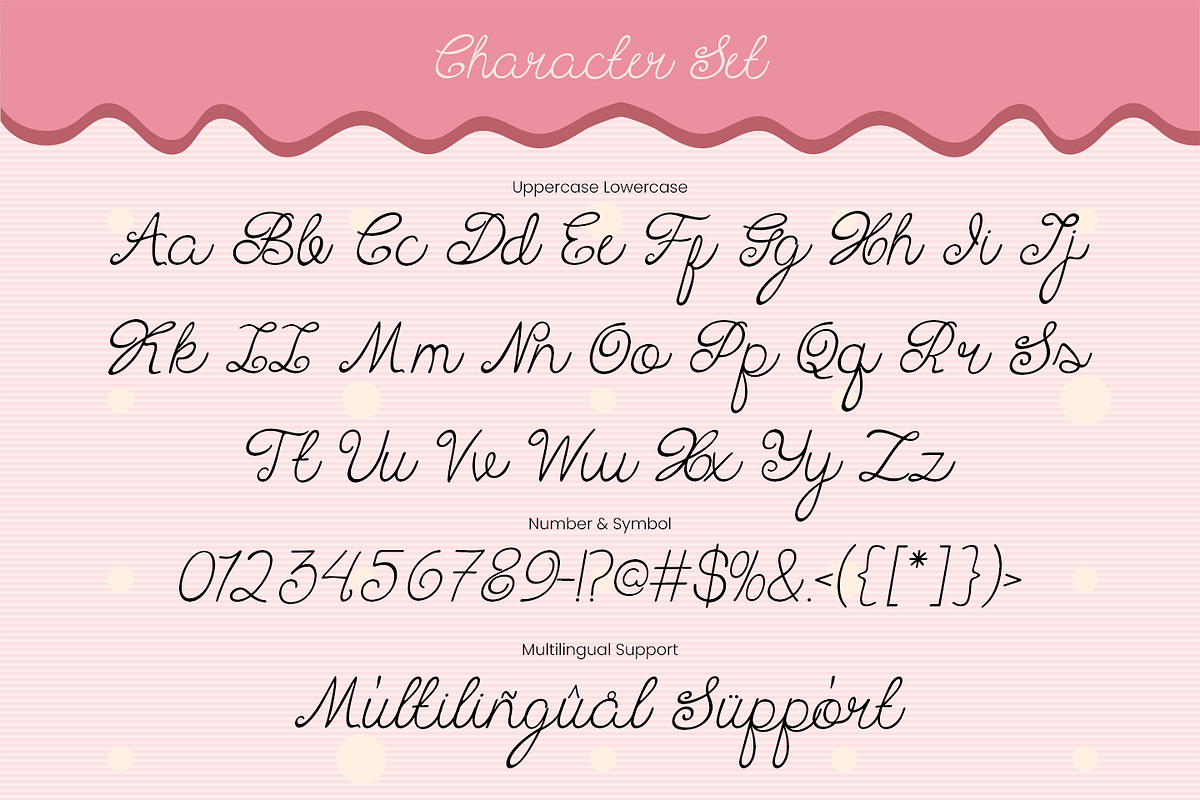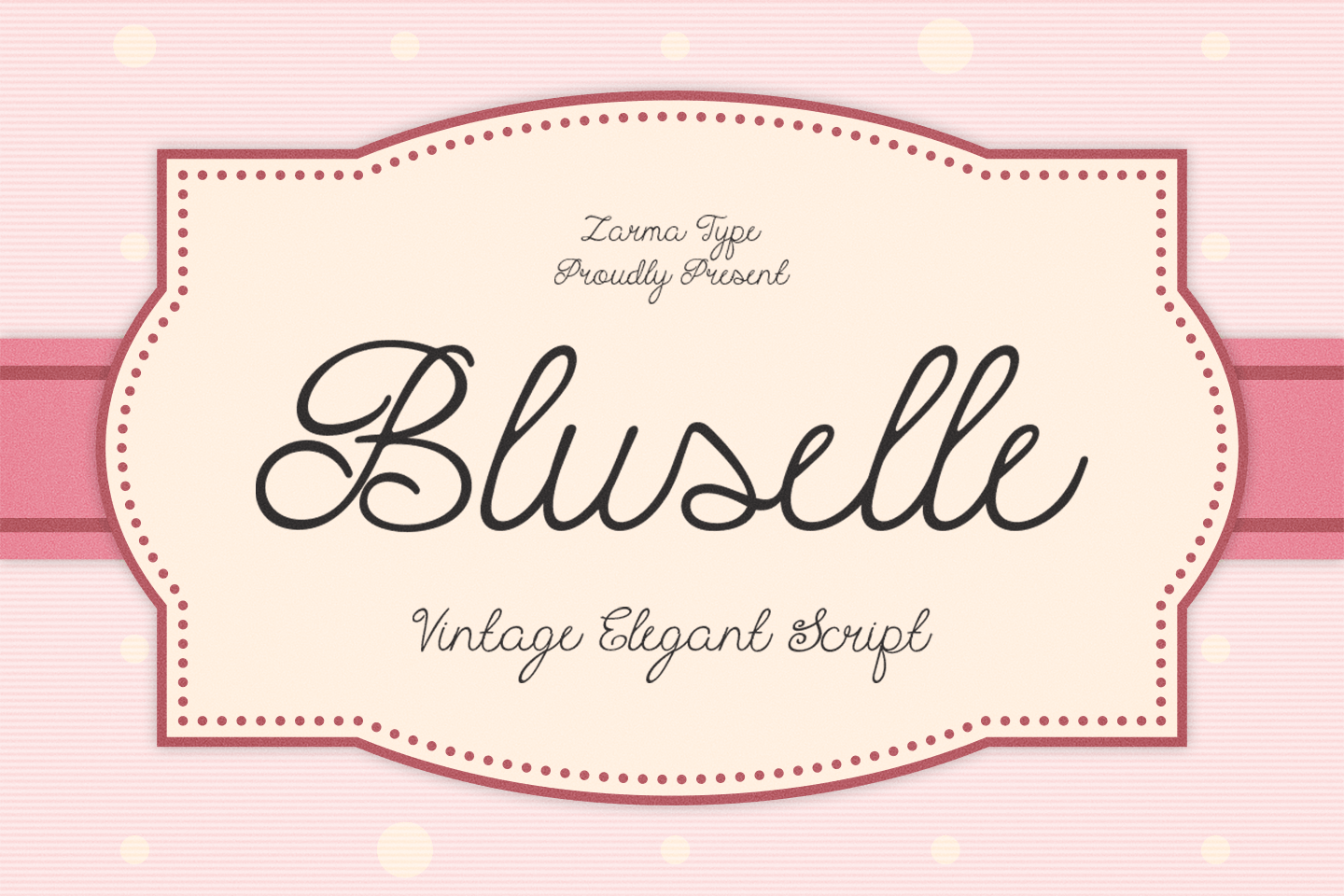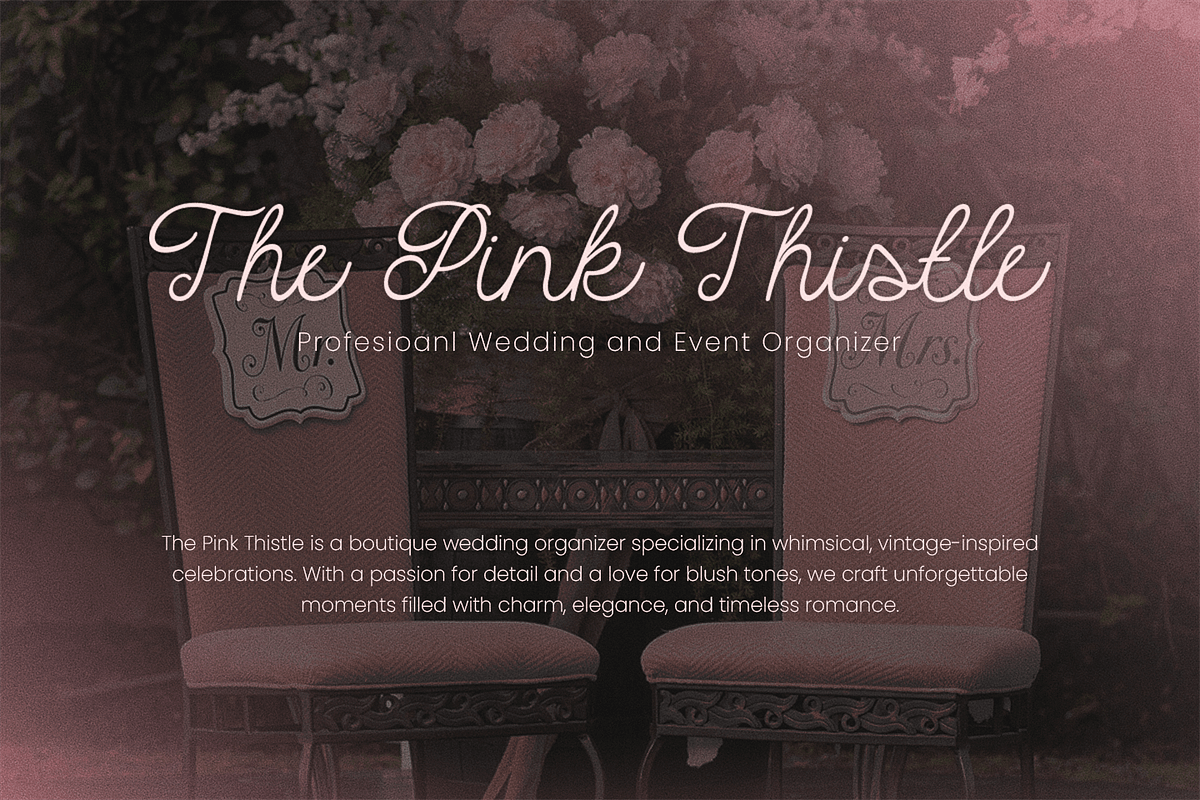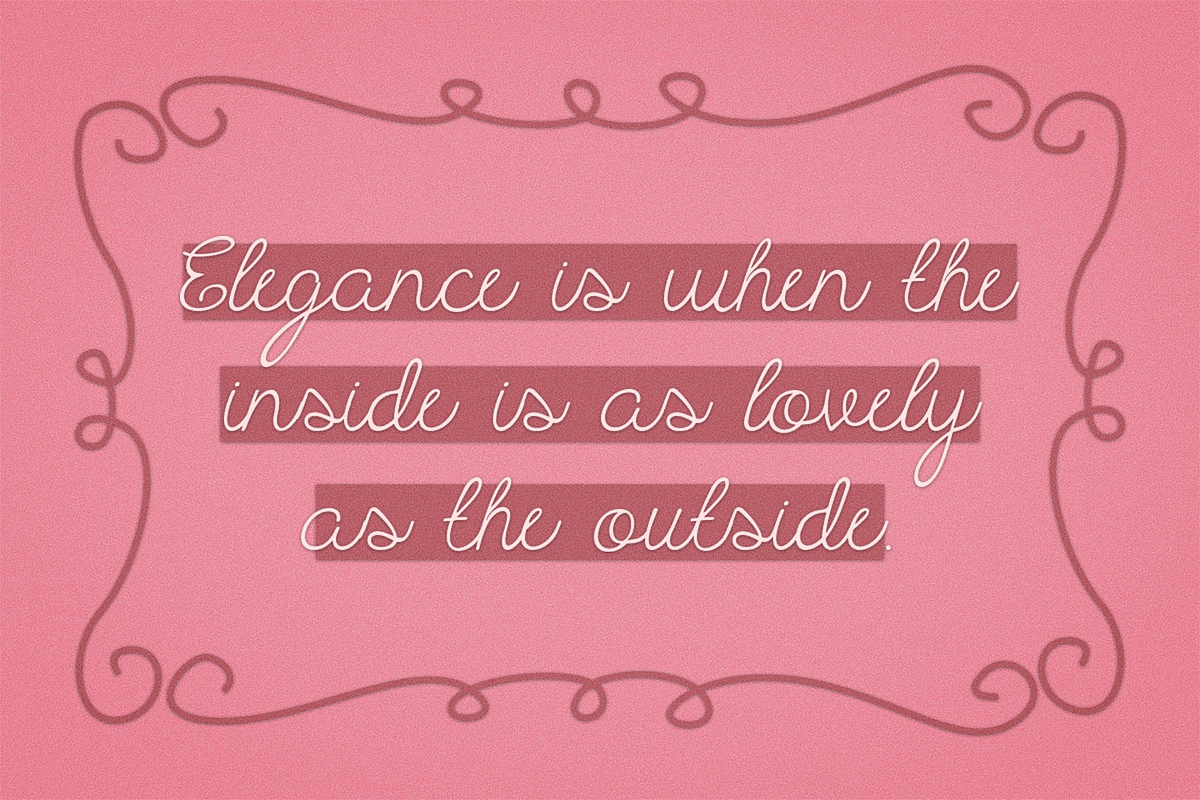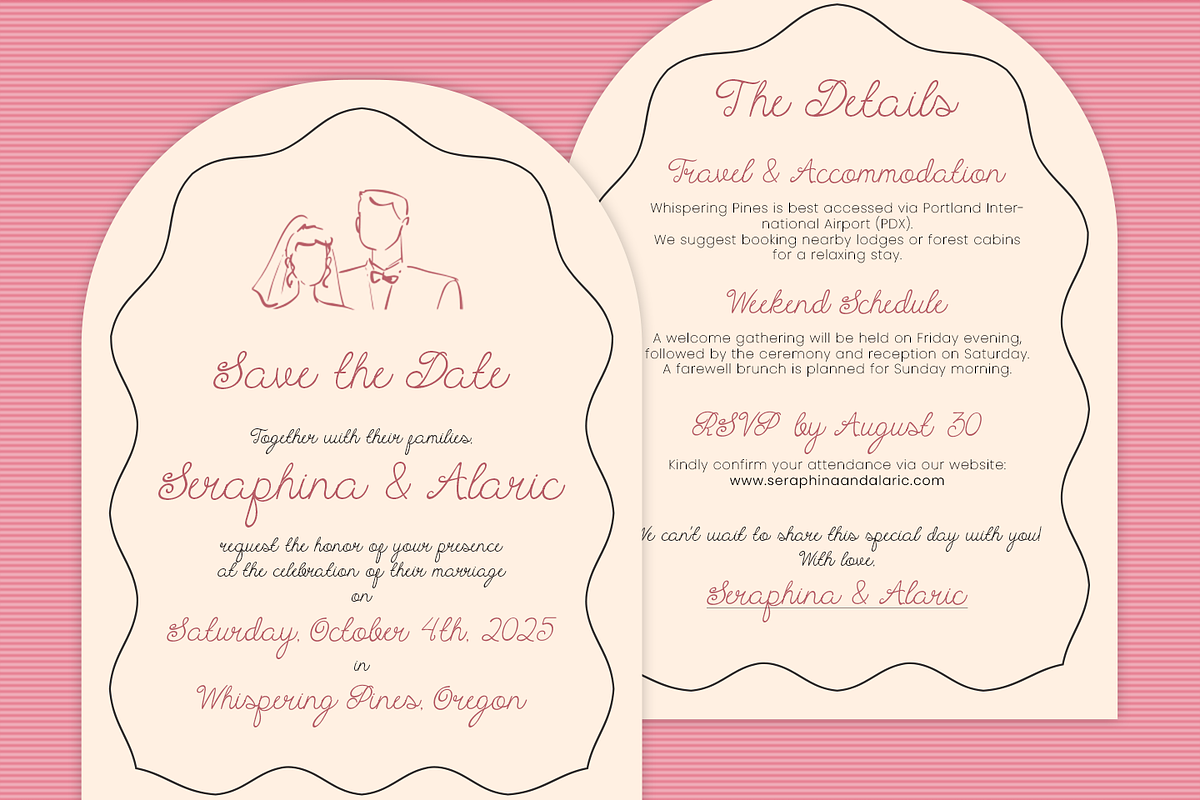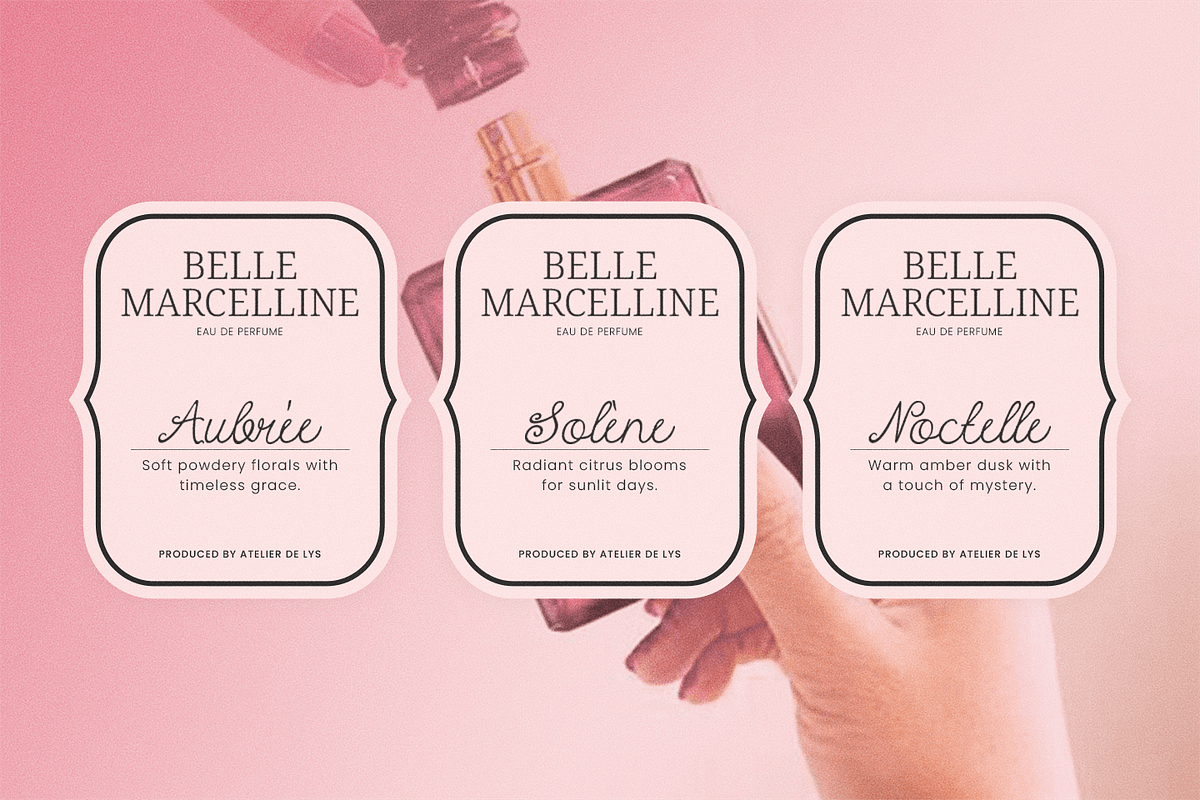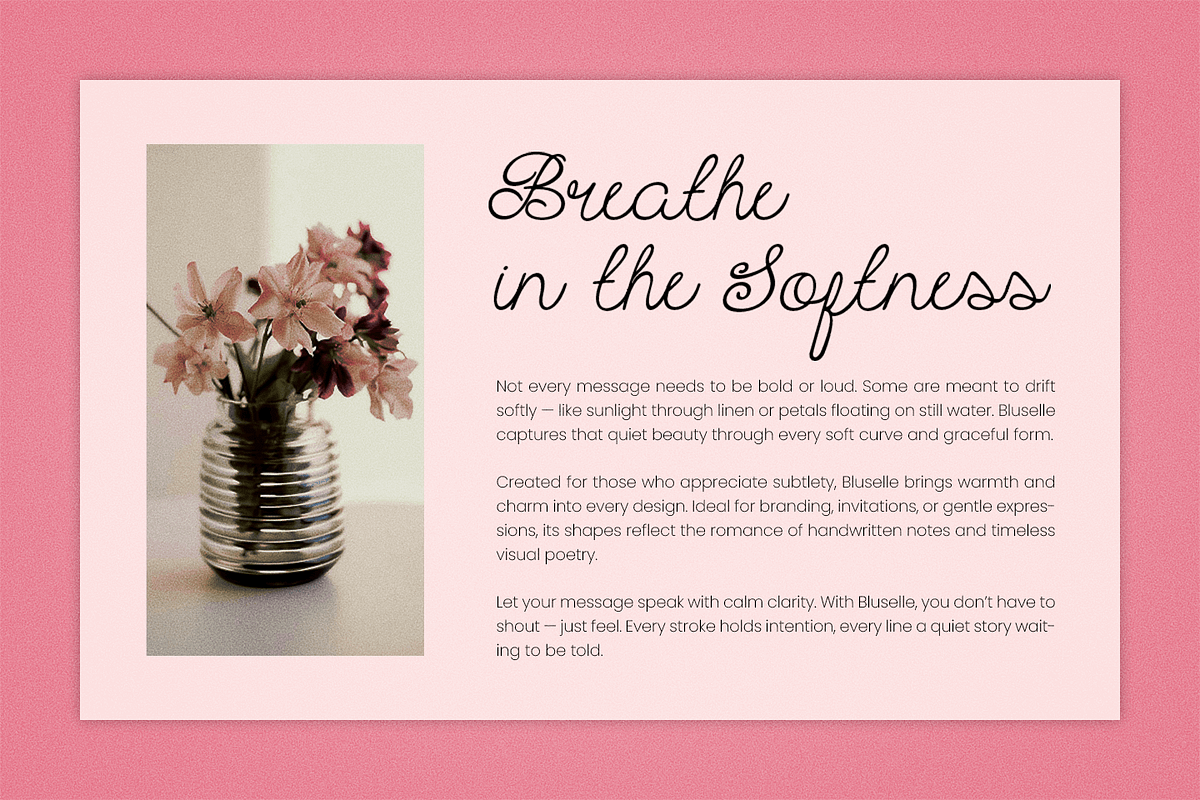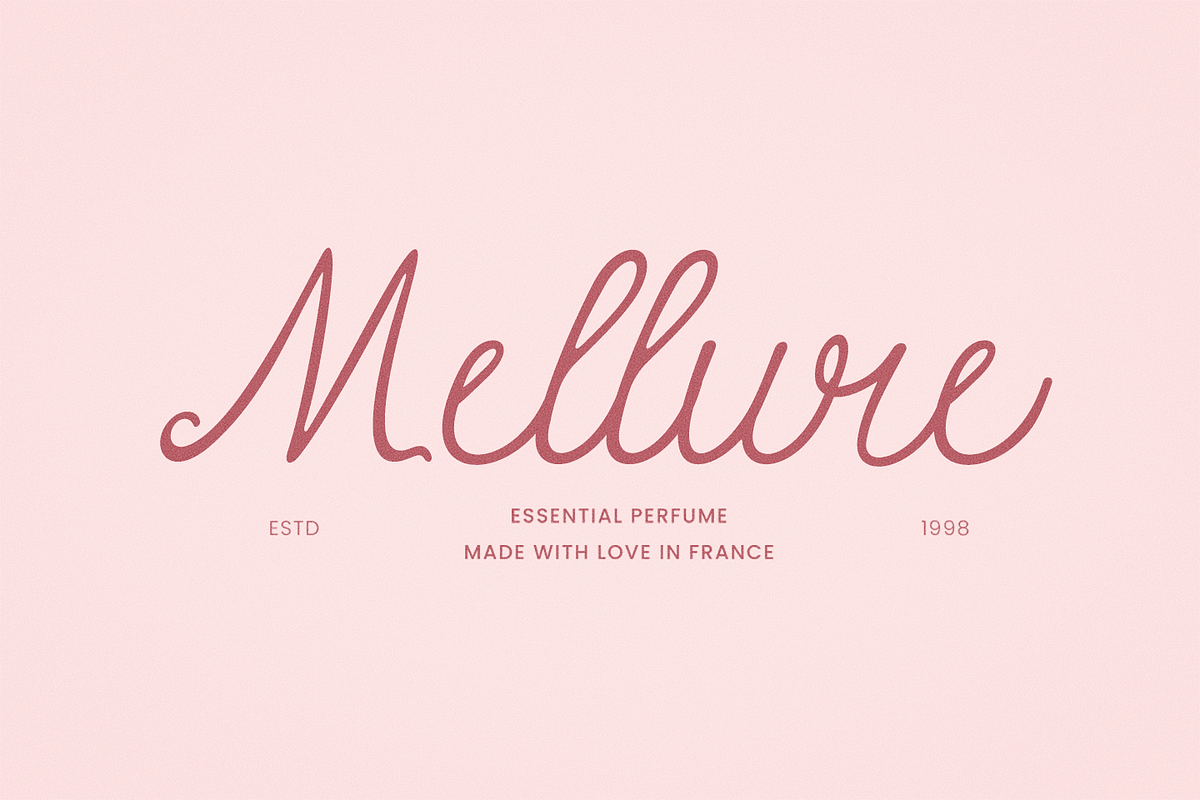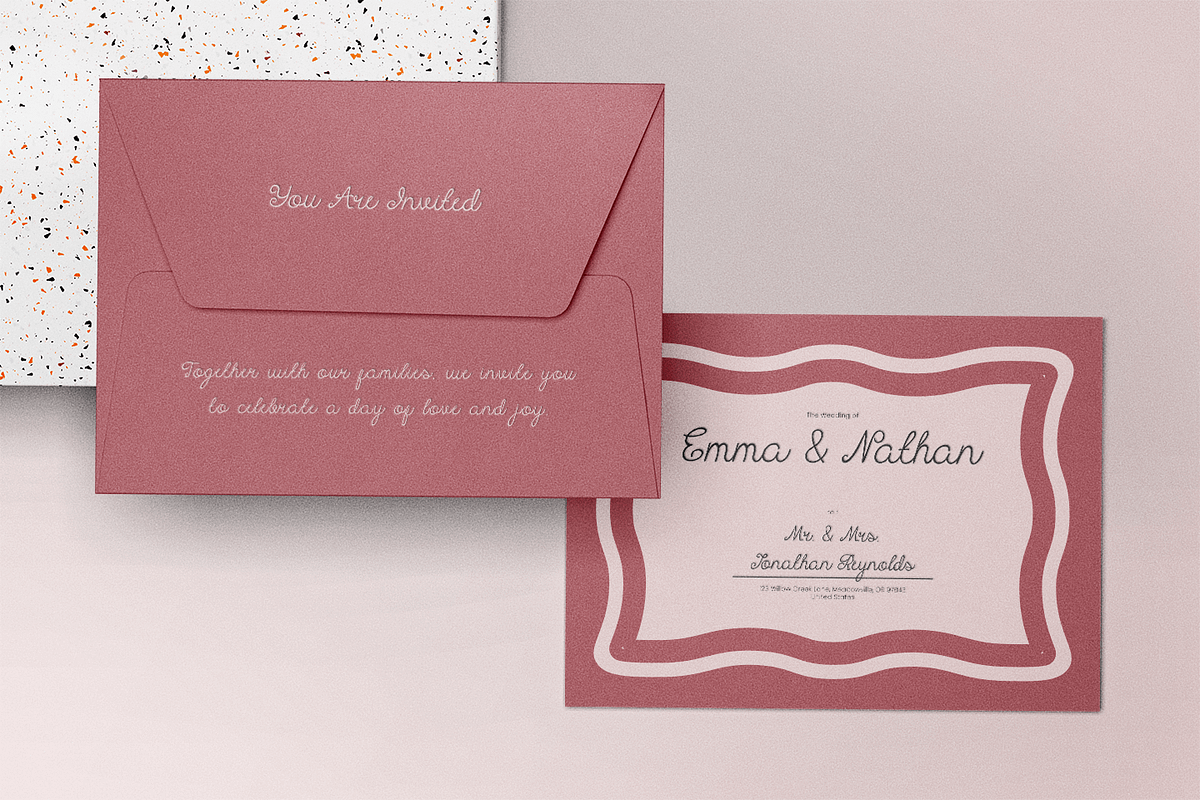
Bluselle - Whimsical Script Font
Bluselle is a sweet and whimsical script font that captures the charm of handwritten elegance with a playful twist. Its delicate curves, rounded terminals, and natural flow make it the perfect companion for designs that aim to be heartfelt, romantic, and stylish. Whether you’re designing wedding invitations, boutique packaging, or graceful quotes, Bluselle adds a touch of softness that feels both modern and nostalgic.
Inspired by vintage stationery and crafted to radiate warmth, Bluselle is versatile across print and digital platforms. Its balance of readability and flair makes it ideal for heartfelt branding and content with personality. From personal notes to product labels, Bluselle brings a sense of joy and femininity to every design project.
- Wedding invitations
- Perfume labels
- Elegant stationery
- Beauty packaging
- Branding projects
- Soft quote designs
- Uppercase and Lowercase Character Set
- Numbers and Punctuation